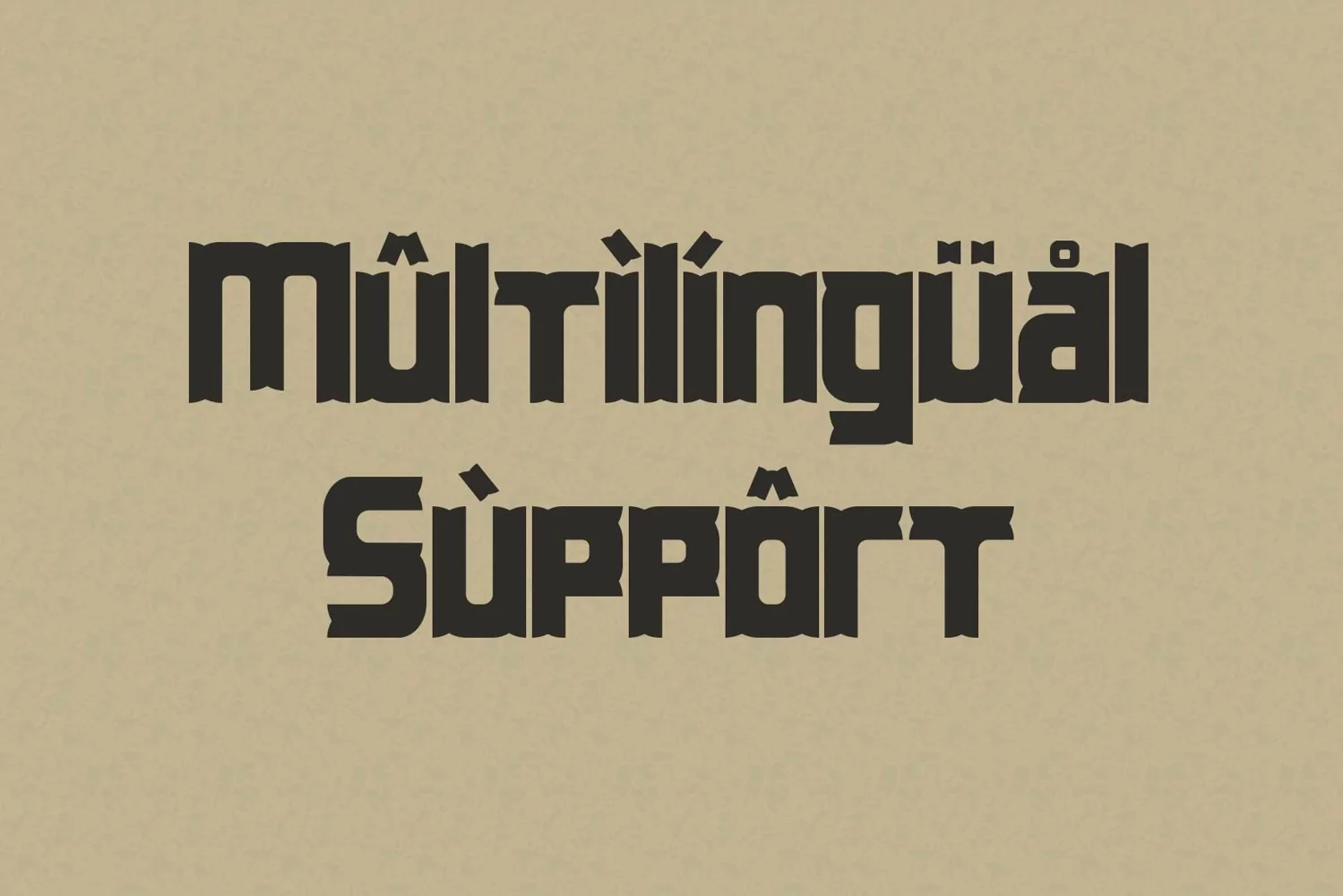
Paporigam
*Paporigam Font**
This pair was inspired by origami design that i saw on some coffee shop, It was crafted by hand specially to add natural handmade feeling in its brand identity than i make it clean with pentool.
**Opentype features**
Paporigam font has 171 character set included
Paporigam Font is very good looking in origami design, origami art, logo, labels, product packaging, invitations, advertising and others.